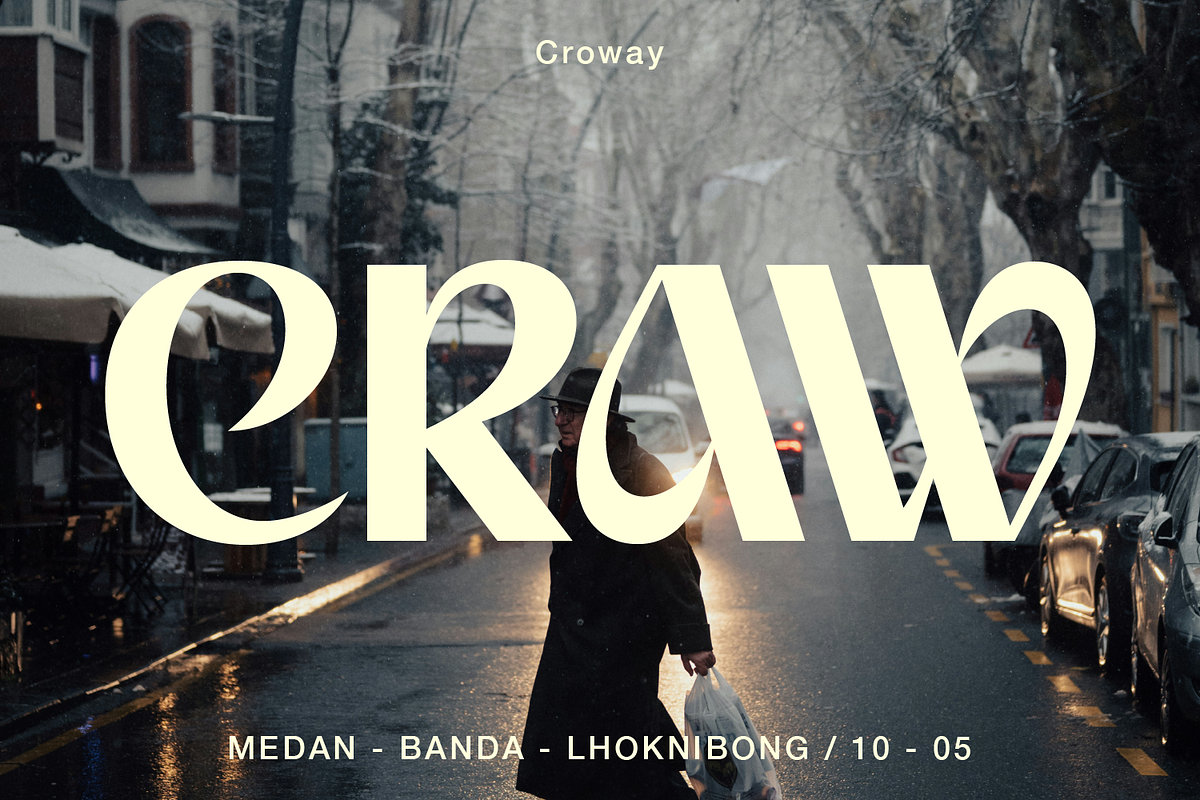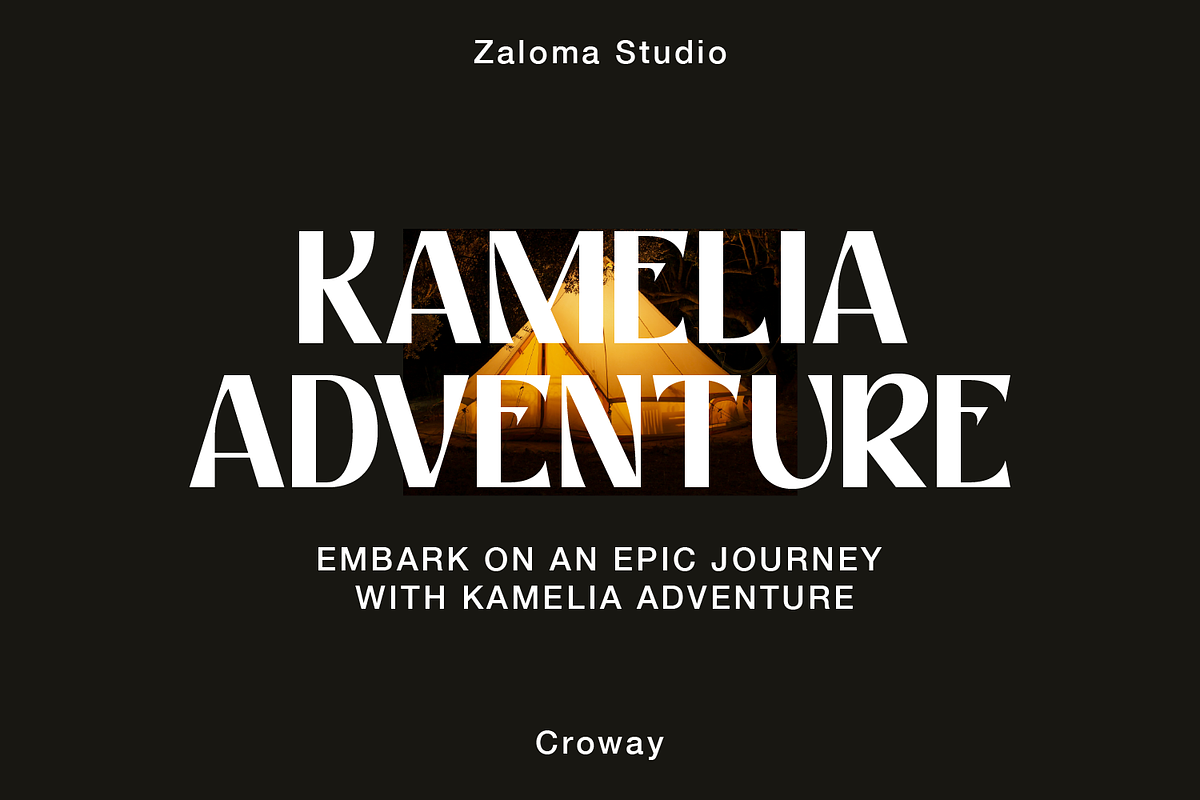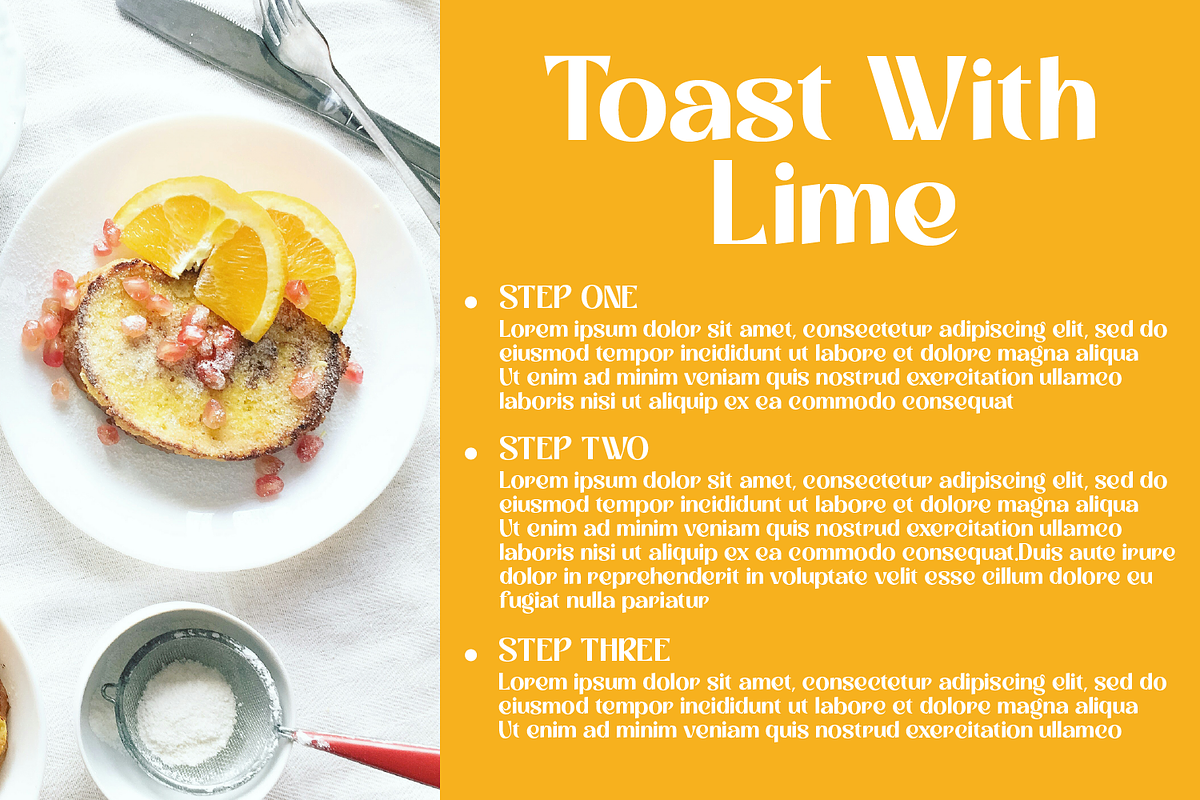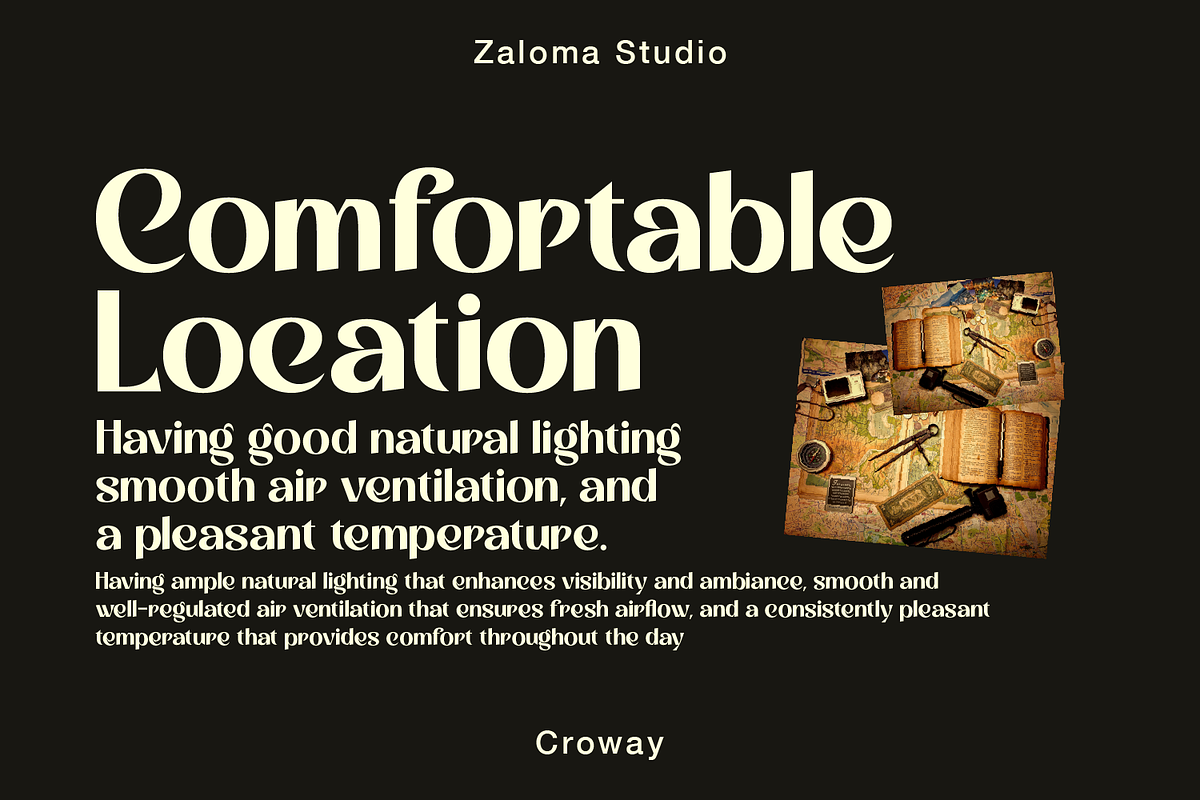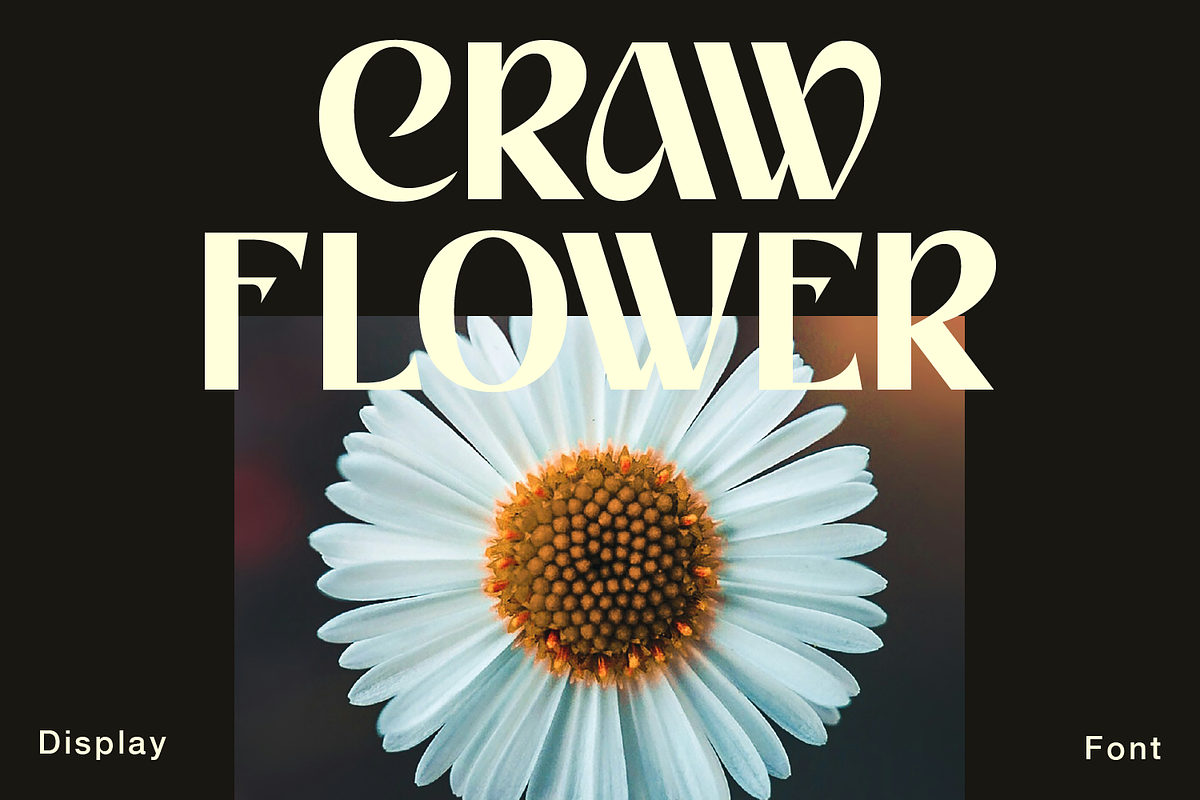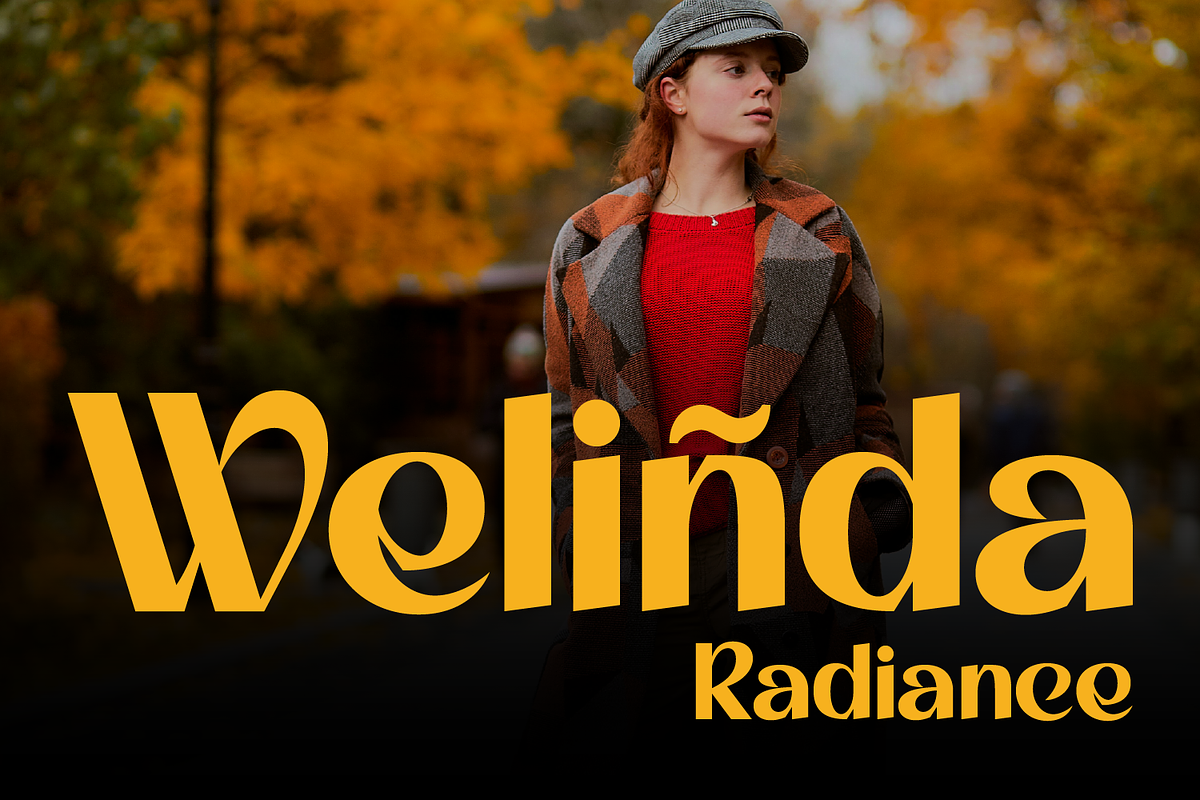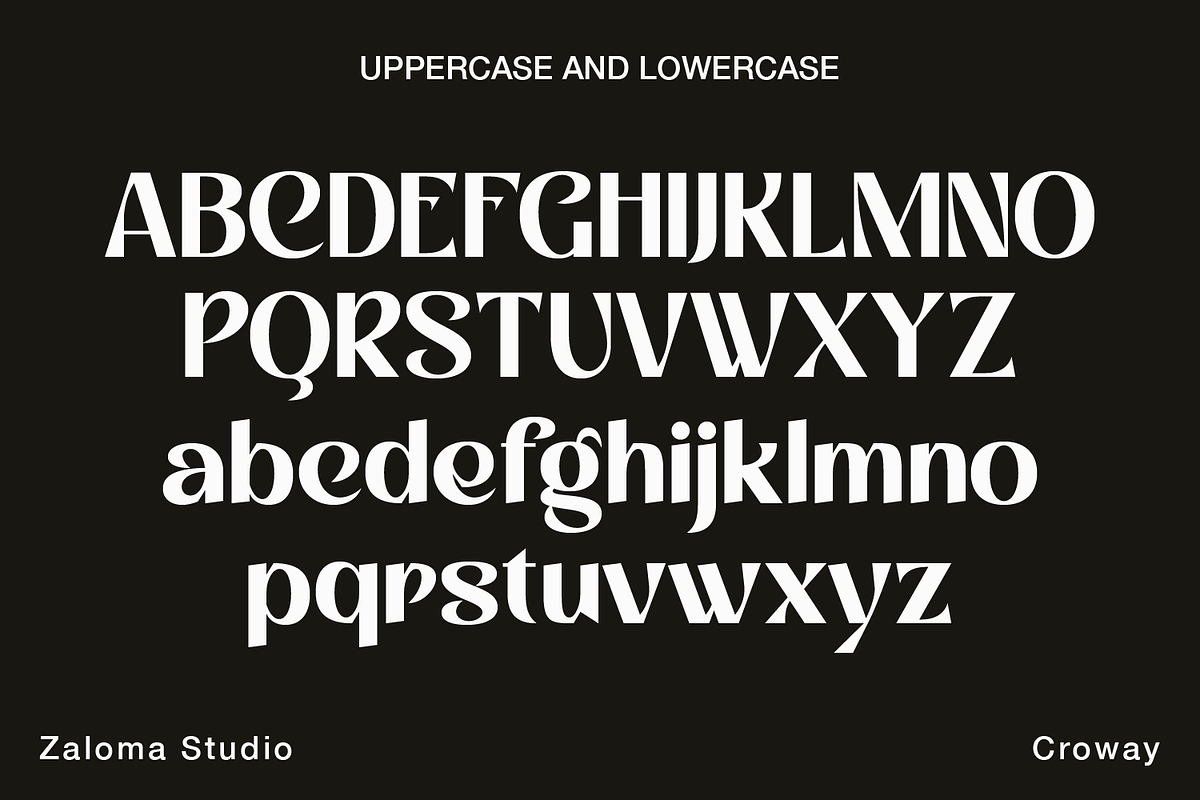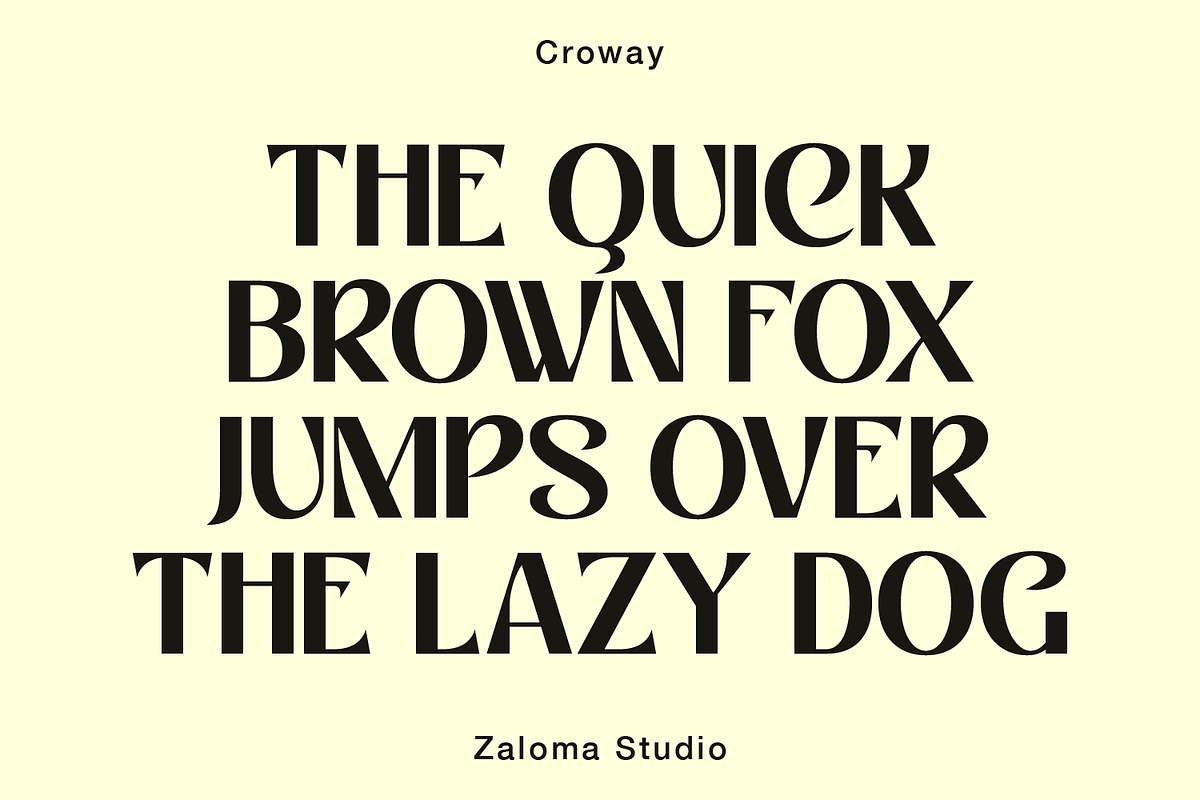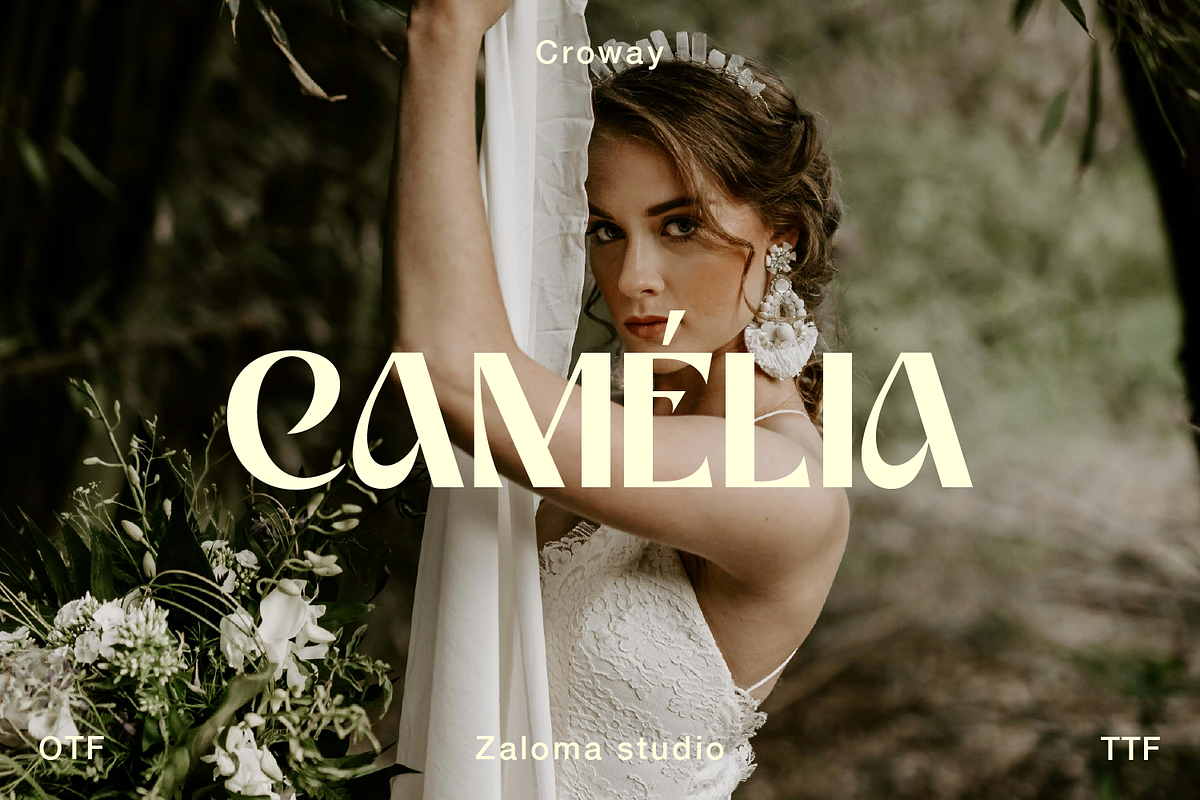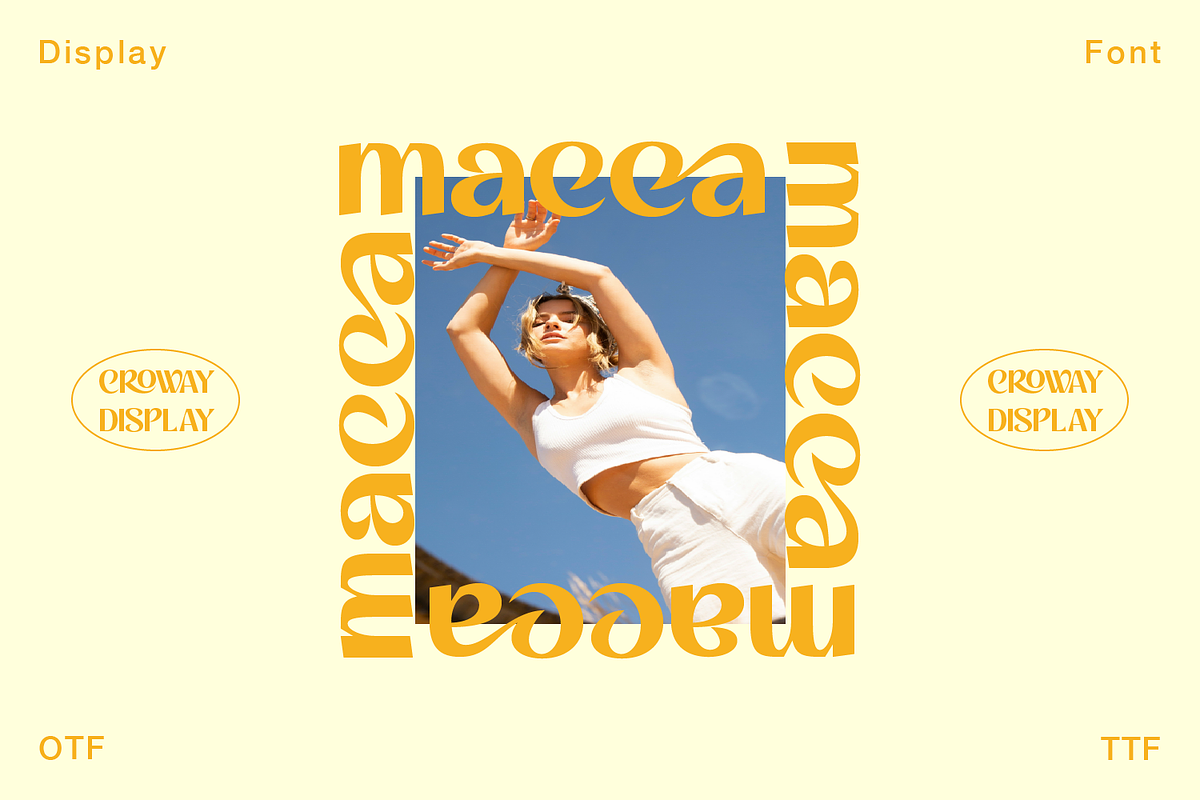
Croway
The "CROWAY" font is a sans serif display typeface with a unique and elegant style. It features the following characteristics:
Unique and Decorative Style — CROWAY showcases bold letterforms that blend rounded serif elements with sharp strokes. — The typeface has a slight Art Deco touch with a distinctive vintage feel.
Alternates and Ligatures — Offers various alternate characters and ligatures for a more dynamic text design. — Some characters include unique embellishments such as curved lines and decorative symbols.
Uppercase and Lowercase Combination — Capital letters appear bold and full of character, perfect for titles or branding. — Lowercase letters are designed to complement uppercase characters while maintaining readability and flexibility.
Suitable for Various Design Needs — Ideal for posters, logos, product packaging, or any design that aims to stand out. — Available in OTF and TTF formats, ensuring compatibility with various design software.
Overall, CROWAY is a typeface that exudes luxury, classic charm, and modern appeal, making it perfect for creative projects that require a distinctive and exclusive touch.